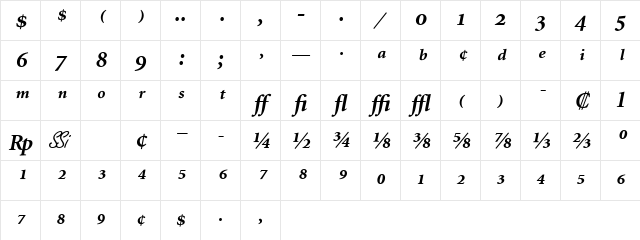
Atlantix Pro Black SSi Bold Italic
Atlantix Pro Black SSi Family
Atlantix Pro Black SSi Bold Italic
Complete Atlantix Pro Black SSi Bold Italic glyph index. Displaying only characters natively supported by Atlantix Pro Black SSi Bold Italic font.
Design Context for Atlantix Pro Black SSi
Atlantix Pro Black SSi is a composed and adaptable typeface that performs quietly and consistently across a wide range of design contexts. The slanted form adds forward momentum and visual energy. Its bold stroke weight gives it real presence on the page.
Pro Tip: Use Atlantix Pro Black SSi for emphasis, pull quotes, and subheadings where its slanted energy can add rhythm to the layout.